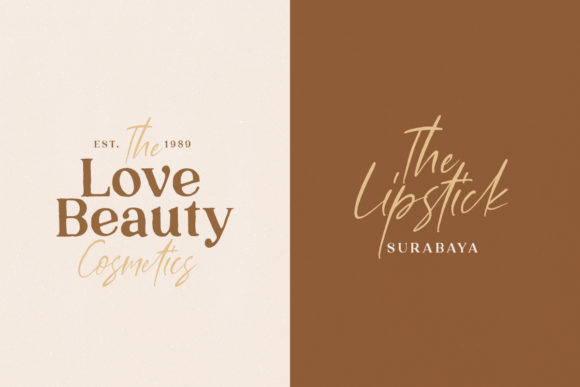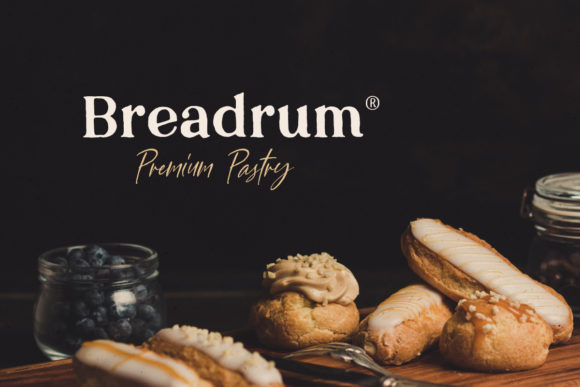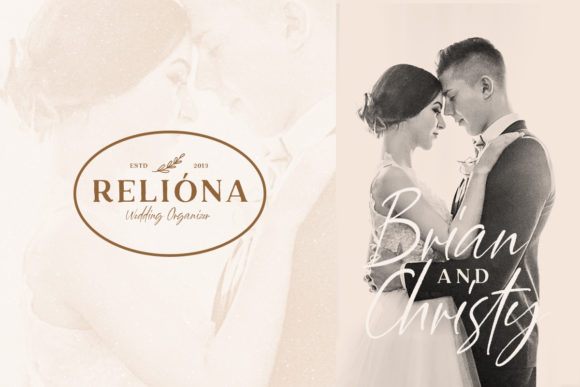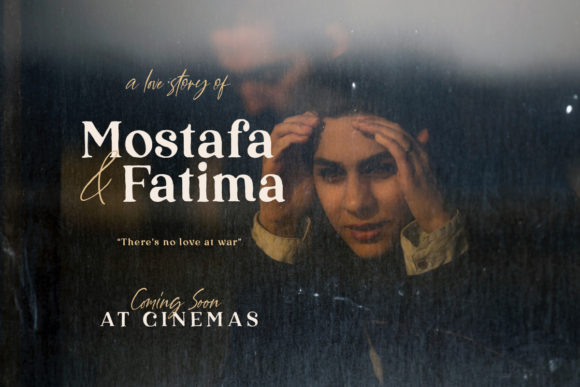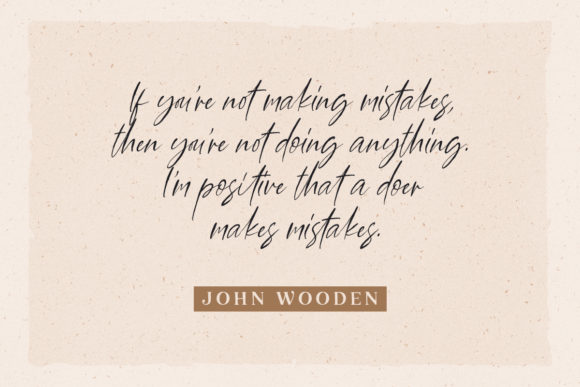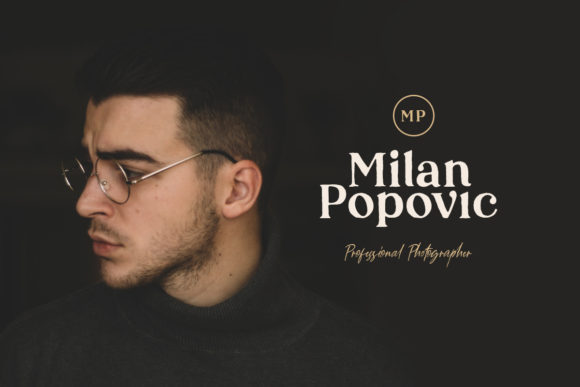
Introduction to Louise Walker Font
Have you ever stared at a blank canvas, eager to bring your creative vision to life, only to be held back by the perfect font? That moment of hesitation is a thing of the past with the introduction of the stunning Louise Walker Font. This dynamic duo of serif and handwritten styles is the ultimate game-changer for designers seeking a high-quality design resource.
Whether you’re working on a project that requires a touch of elegance or a dash of playfulness, the Louise Walker Font is the perfect companion. Its versatility shines through in its ability to elevate even the most mundane designs to new heights. Plus, with its PUA encoding, you’ll have access to all the glyphs and swashes you need to take your creative project to the next level.
Key Features of Louise Walker Font
- Includes a set of stylish and elegant characters with a transparent background, perfect for overlaying on images.
- Unique characteristic: The Louise Walker Font features a sophisticated and refined aesthetic, making it perfect for use in luxury branding, high-end fashion, and elegant typography projects.
Honest Review: Louise Walker Font
I recently had the chance to work with the Louise Walker Font, and I must say it’s been a game-changer for my design projects. This font is a true gem in the world of design resources.
- ✨ High-quality design: The Louise Walker Font is meticulously crafted, making it perfect for creative projects.
- ✨ Versatility: It’s suitable for a wide range of applications, from print to digital design.
- ⚠️ Limited character set: While the font is great for body text, it may not be the best choice for titles or headings.
- ⚠️ Not suitable for transparent backgrounds: The font’s design may not work well with transparent backgrounds, so be sure to test it before using.
Overall, I’m thoroughly impressed with the Louise Walker Font. Its high-quality design and versatility make it an excellent choice for any creative project. While it may have some limitations, it’s well worth the free download. If you’re a designer looking for a reliable font, I highly recommend giving it a try.
Tips for Getting the Most Out of Louise Walker Font
Experiment with different font sizes and styles to create a unique visual identity for your brand. Use the font in combination with other design resources to create a cohesive look. Consider using the font in conjunction with a solid-colored background to really make it stand out.
The Louise Walker Font is perfect for use in a variety of creative projects, including graphic design, digital art, and branding. It’s also great for use in presentations and documents where a touch of elegance is needed. Whether you’re a professional designer or a hobbyist, the free download of this high-quality font is a valuable resource.